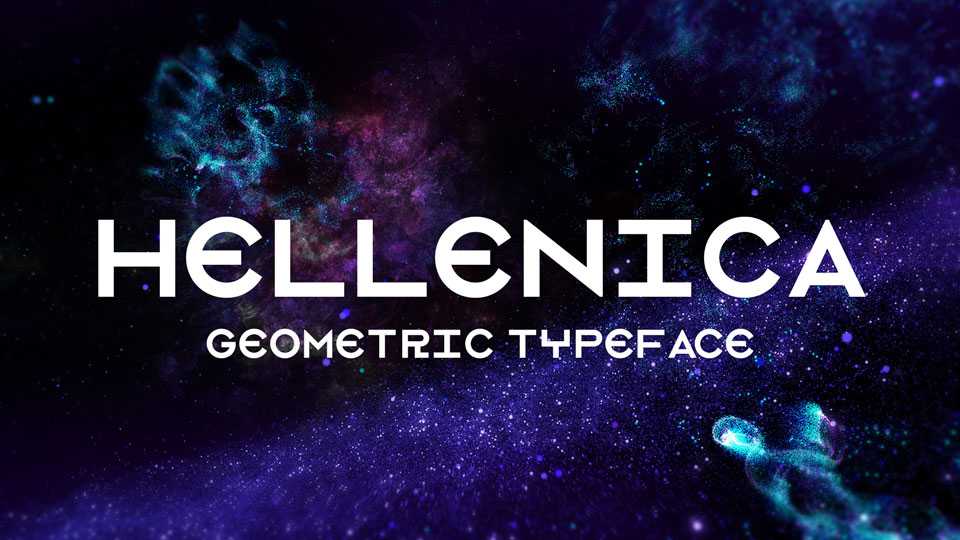
Download Hellenica font, a bold geometric typeface, in this new interpretation is definitely more balanced, more playful and more interesting. Hellenica is great for loud messages, logos, headlines, posters, signage and other display purposes.